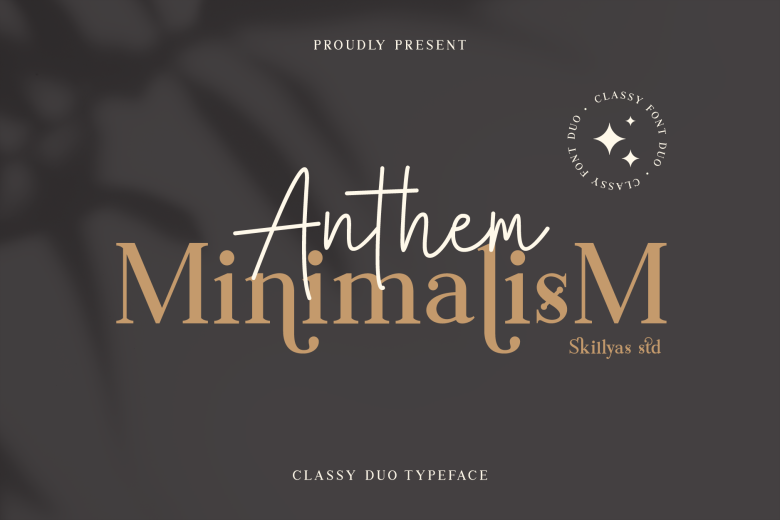
Anthem Minimalism font
Anthem Minimalism Duo is a lovely font (serif and script). It looks ravishing on wedding invitations, thank you cards, quotes, greeting cards, logos, business cards and every other design which needs a customized touch.